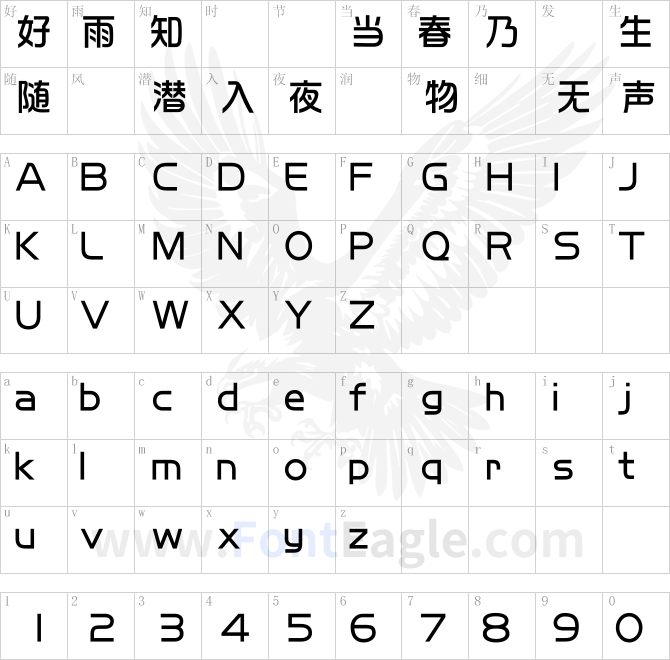
- Font name:DFPPOPミックスW5
DFPPOPMix-W5 is a great font, widely used in graphic design, single-page menu design, poster design and other fields, and is deeply loved by designers.DFPPOPMix-W5 download.